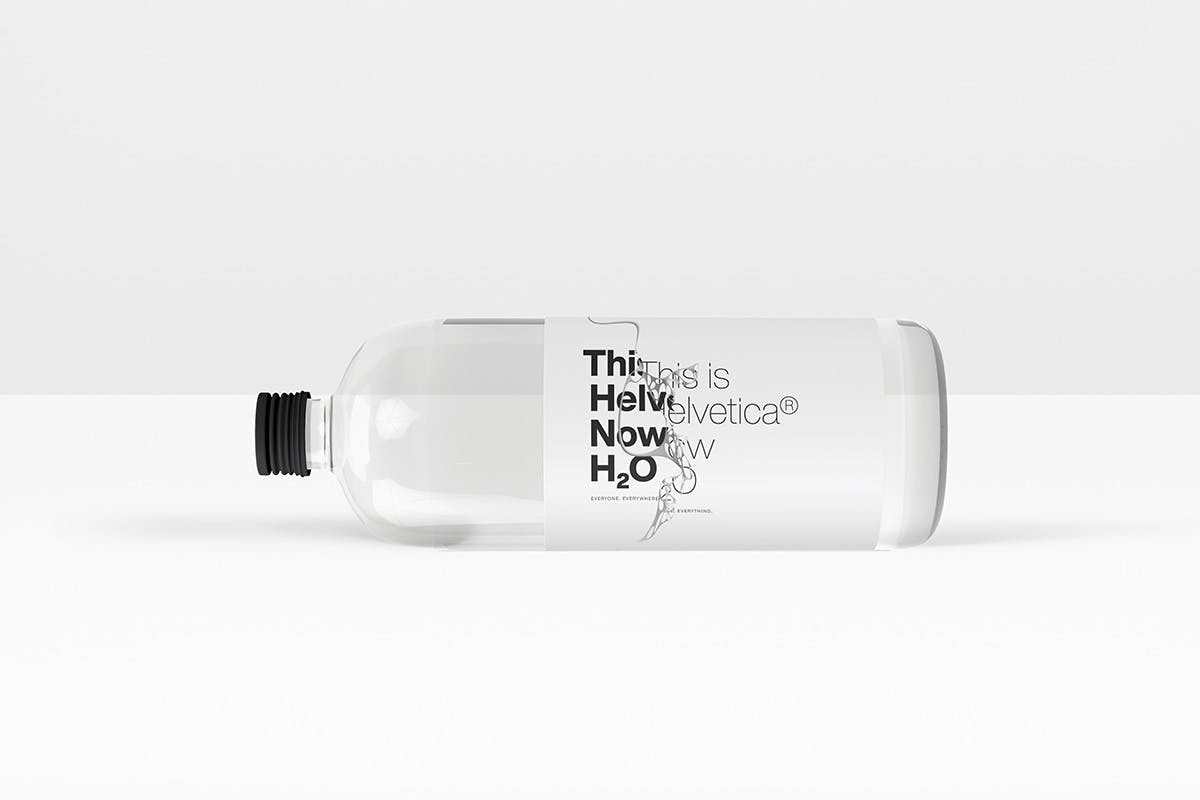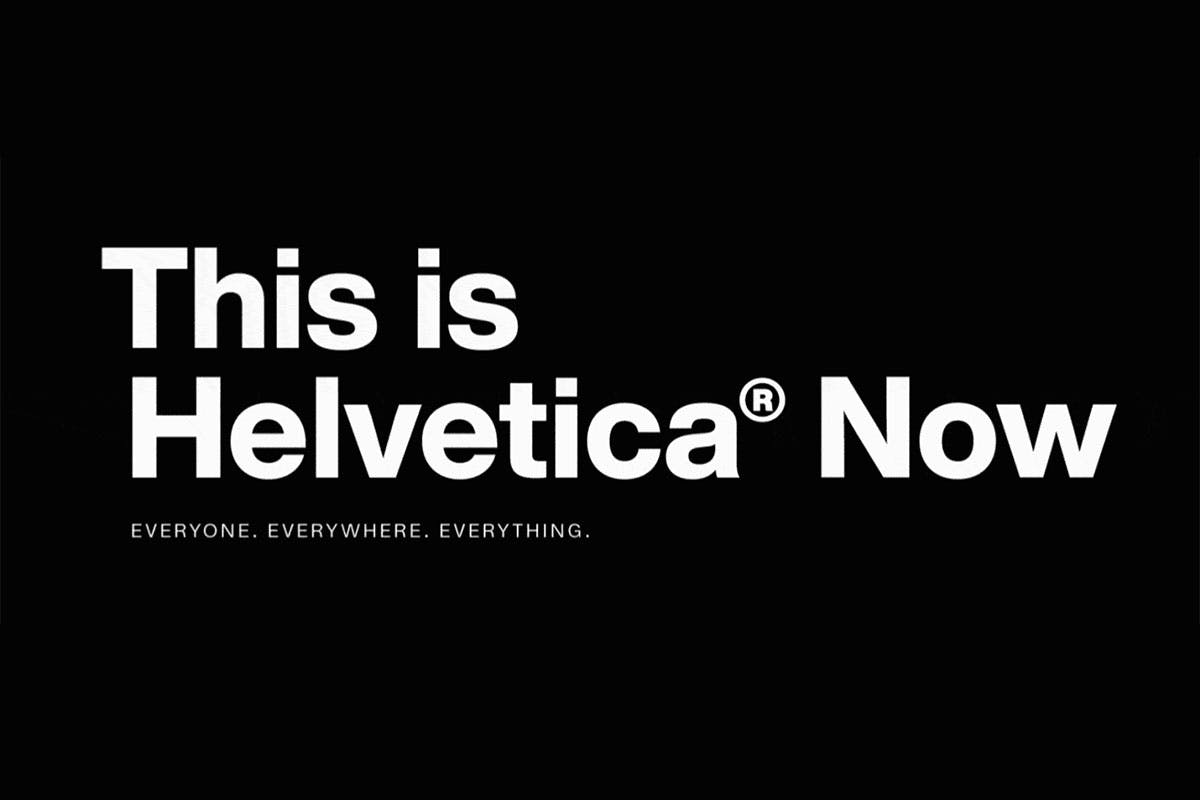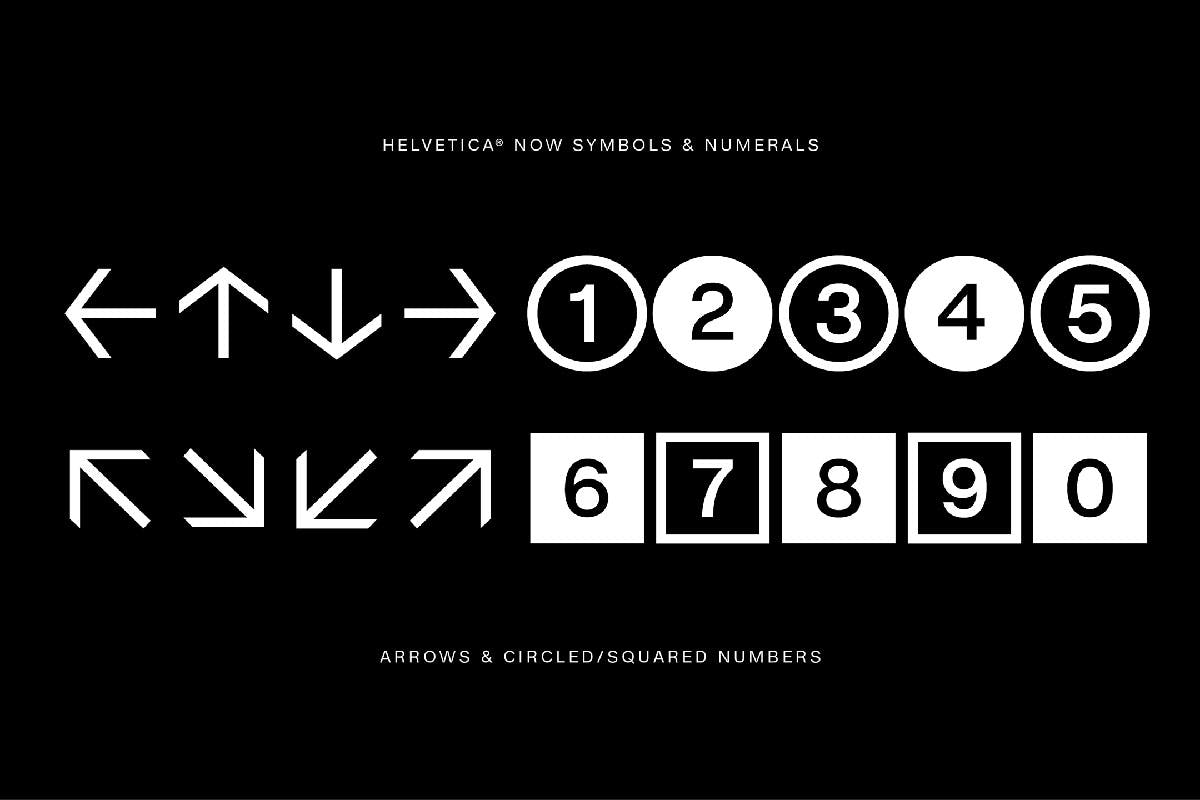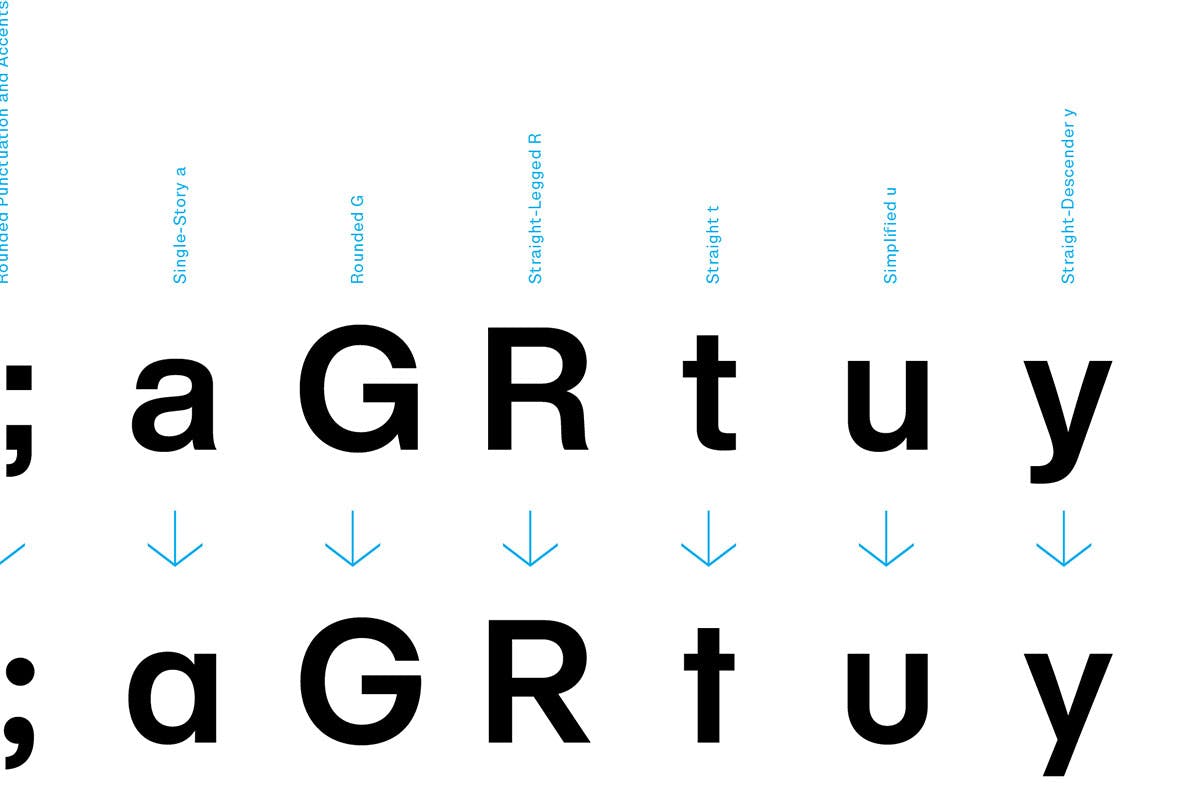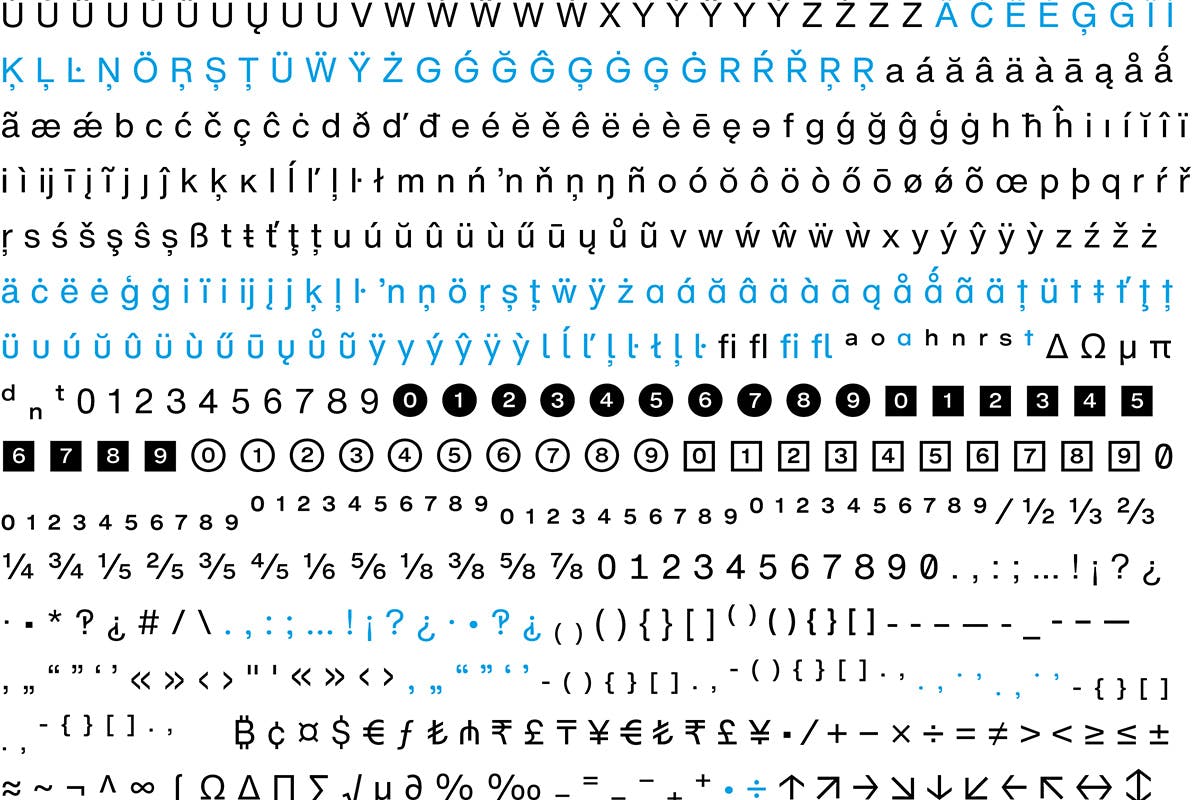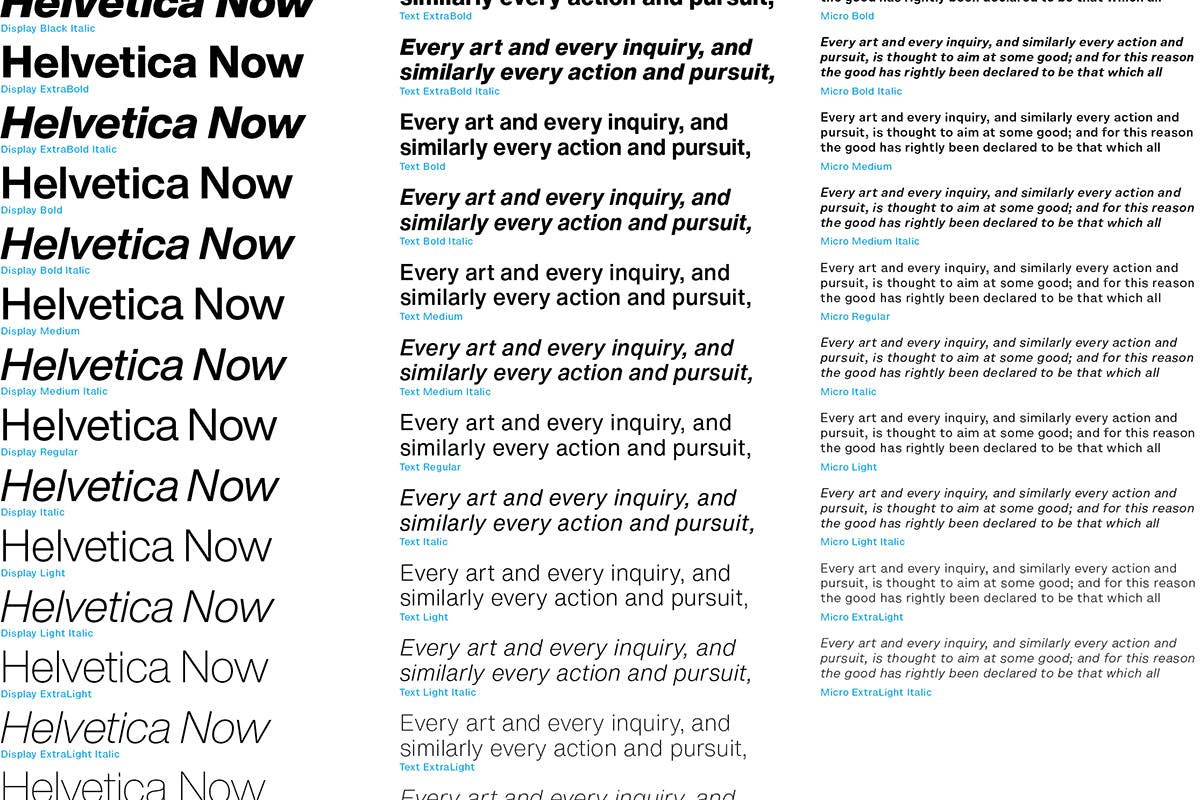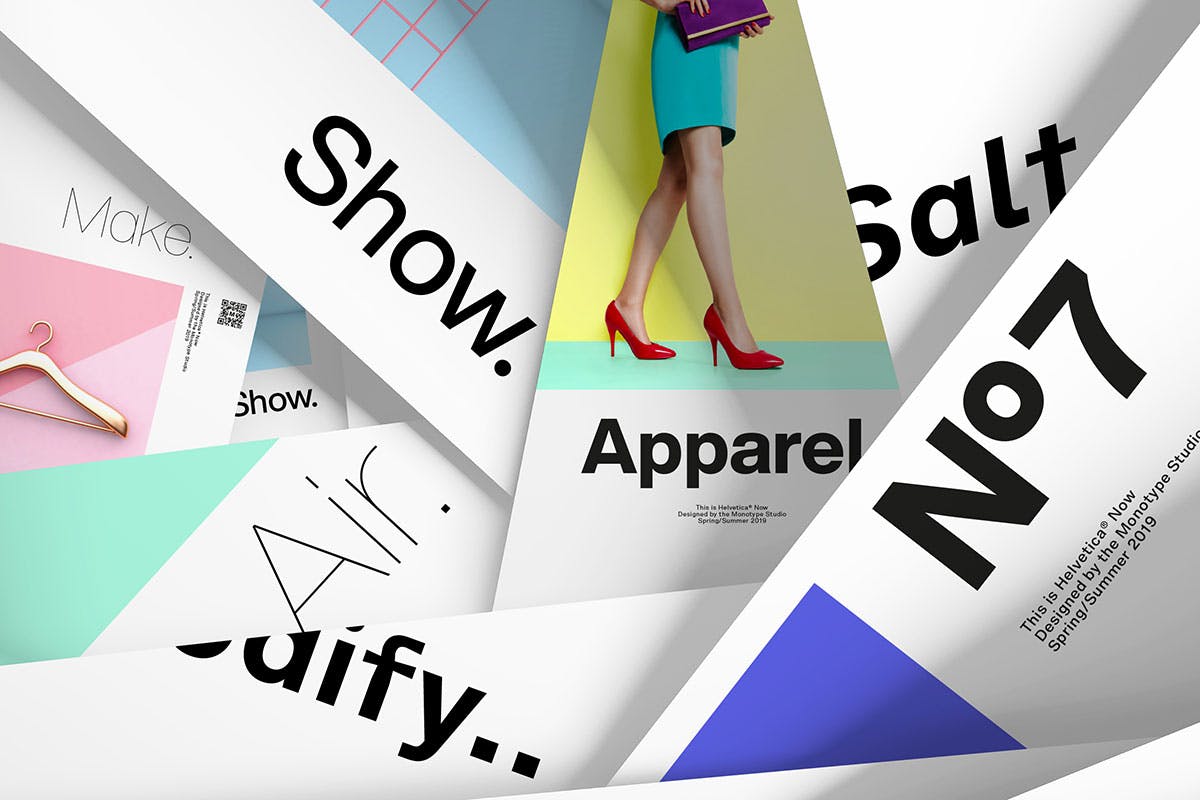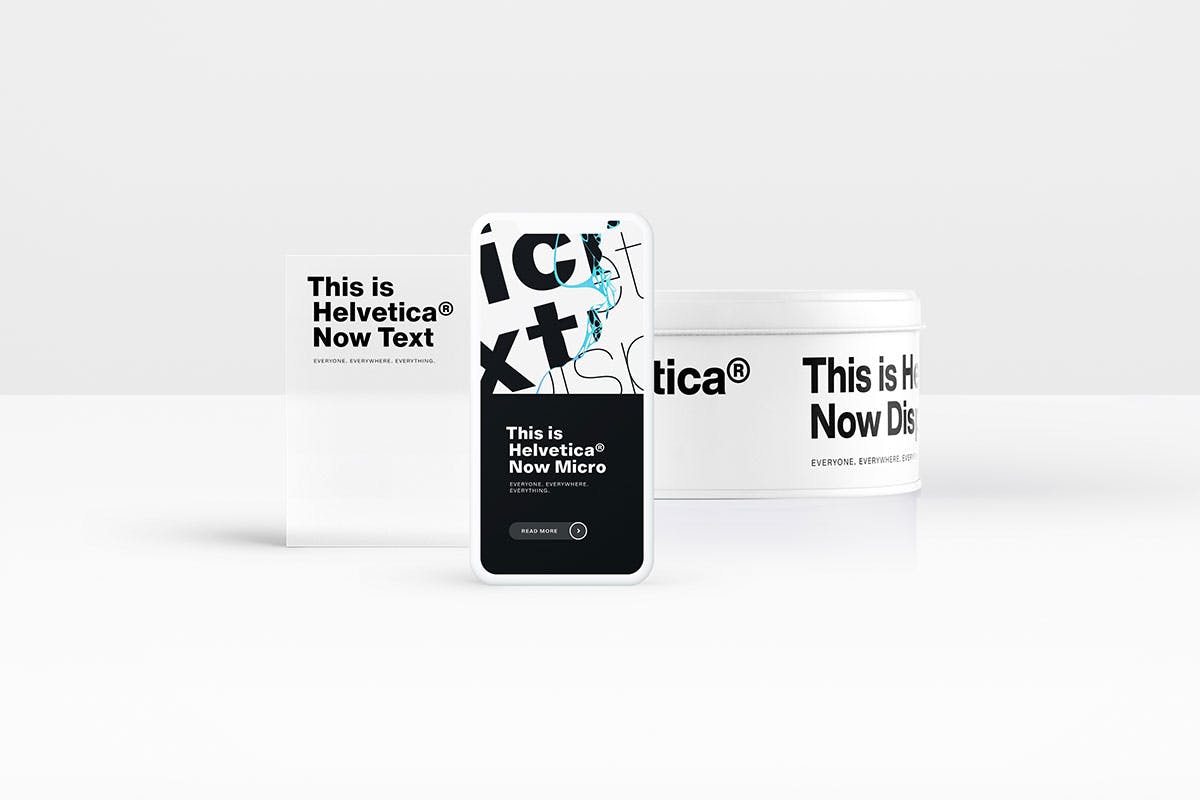
Helvetica, arguably the world's favorite font and a mainstay of graphic design, has undergone its first revamp in 35 years, designed by current owner and world's oldest type company Monotype.
The new font, Helvetica Now, updates a typeface invented in 1957 by Swiss designer Max Miedinger. Helvetica has seen several iterations over the years, becoming digitized in 1983 as Neue Helvetica under then-owner Linotype's D. Stempel subsidiary, complete with unified structure, weights, and widths.
Monotype's Helvetica Now redesign was a collaborative effort, with multiple designers and engineers from the company's studio working on the project since December 2014, according to Designboom.
The new design is aimed at today's designers and comes in three optical sizes: micro (for small screens), text (standard size), and display (for signage). Take a look at the variations in the gallery above.